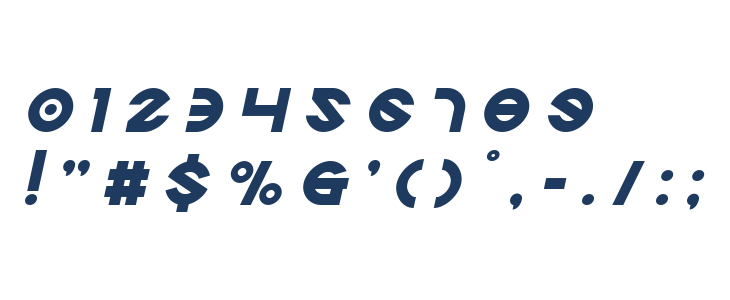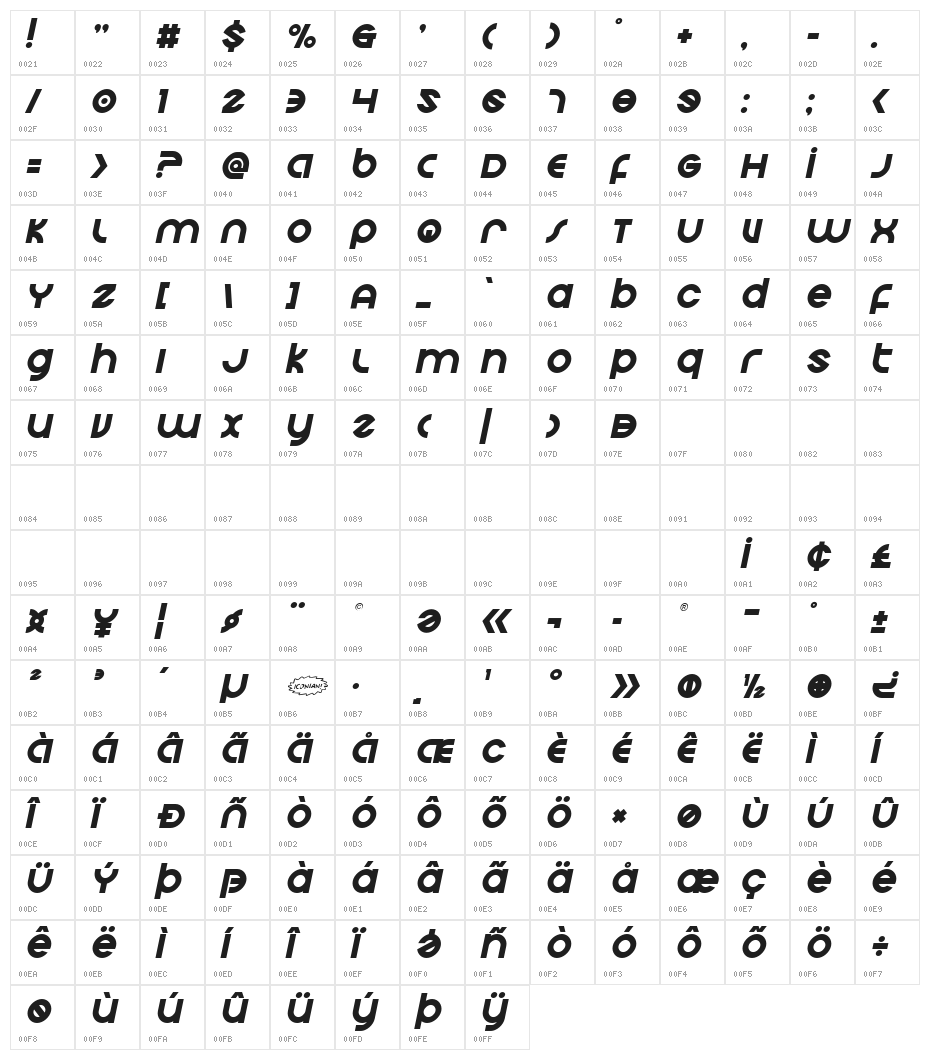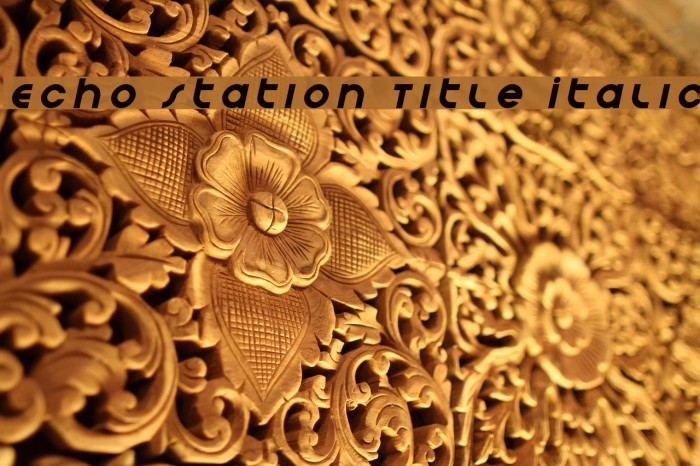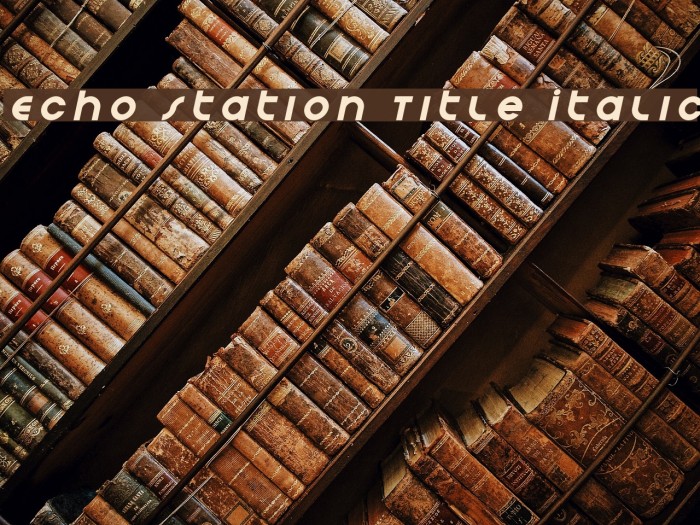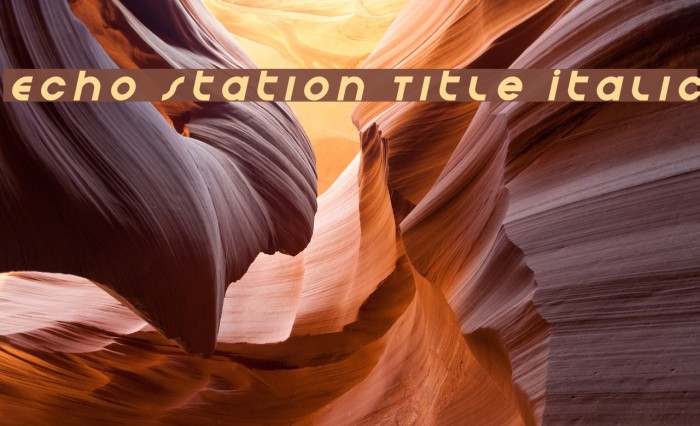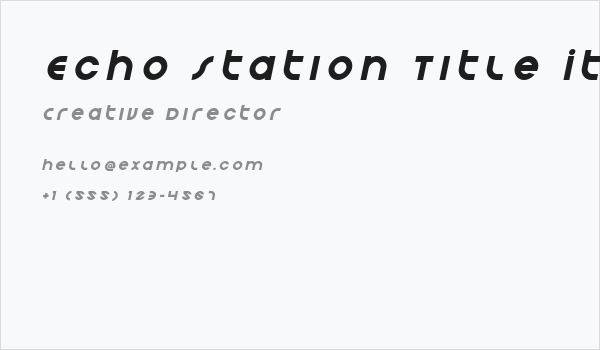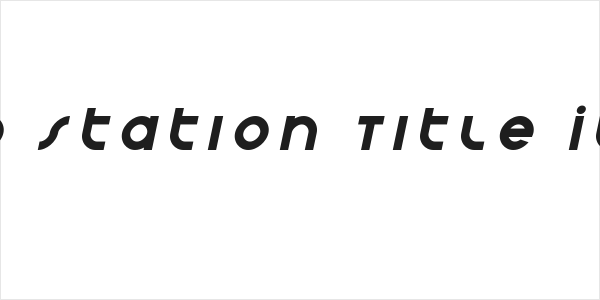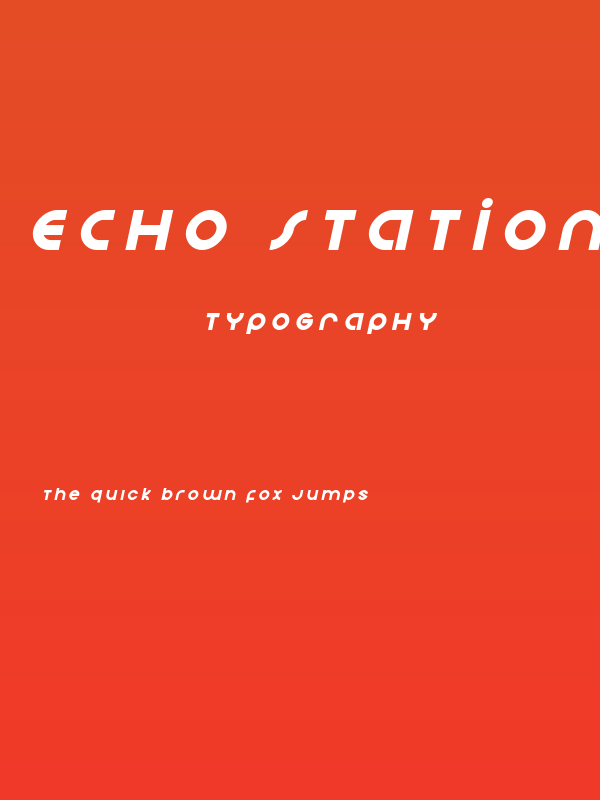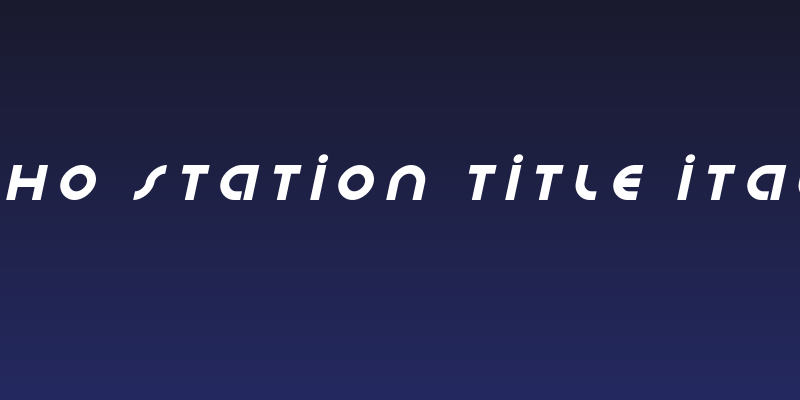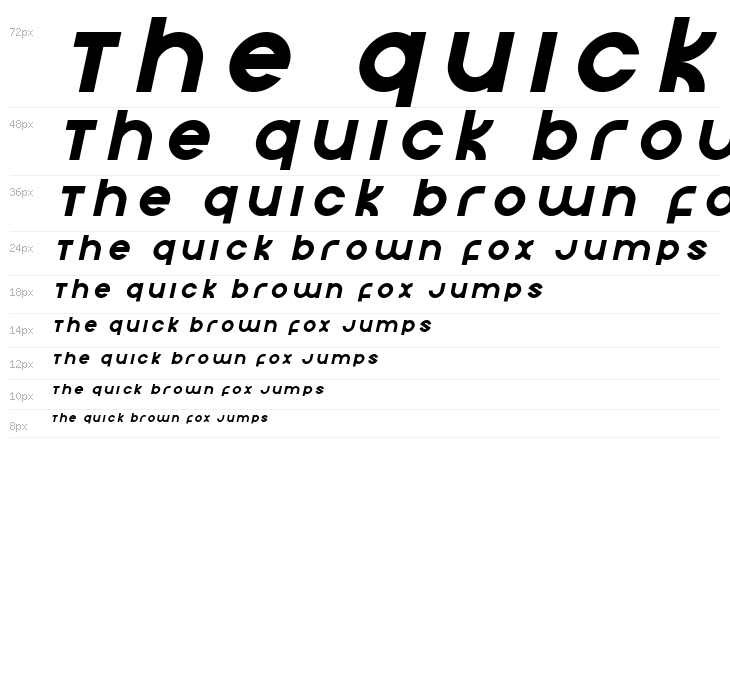
Echo Station Title Italic Font
Echo Station Title Italic Description
This font features a bold and dynamic style with a futuristic flair. The characters are italicized, giving a sense of motion and energy. The design incorporates unique geometric shapes, particularly noticeable in the letters 'a', 'e', and 'g', which have a distinct circular form. The numbers follow a similar style, with a modern and slightly abstract appearance. The special characters maintain the bold and italicized theme, ensuring consistency across the set. This font is ideal for projects that require a modern and energetic look, such as technology branding or contemporary advertising.
| Proposed Projects | Ideal for technology branding, modern advertising, and futuristic design projects. |